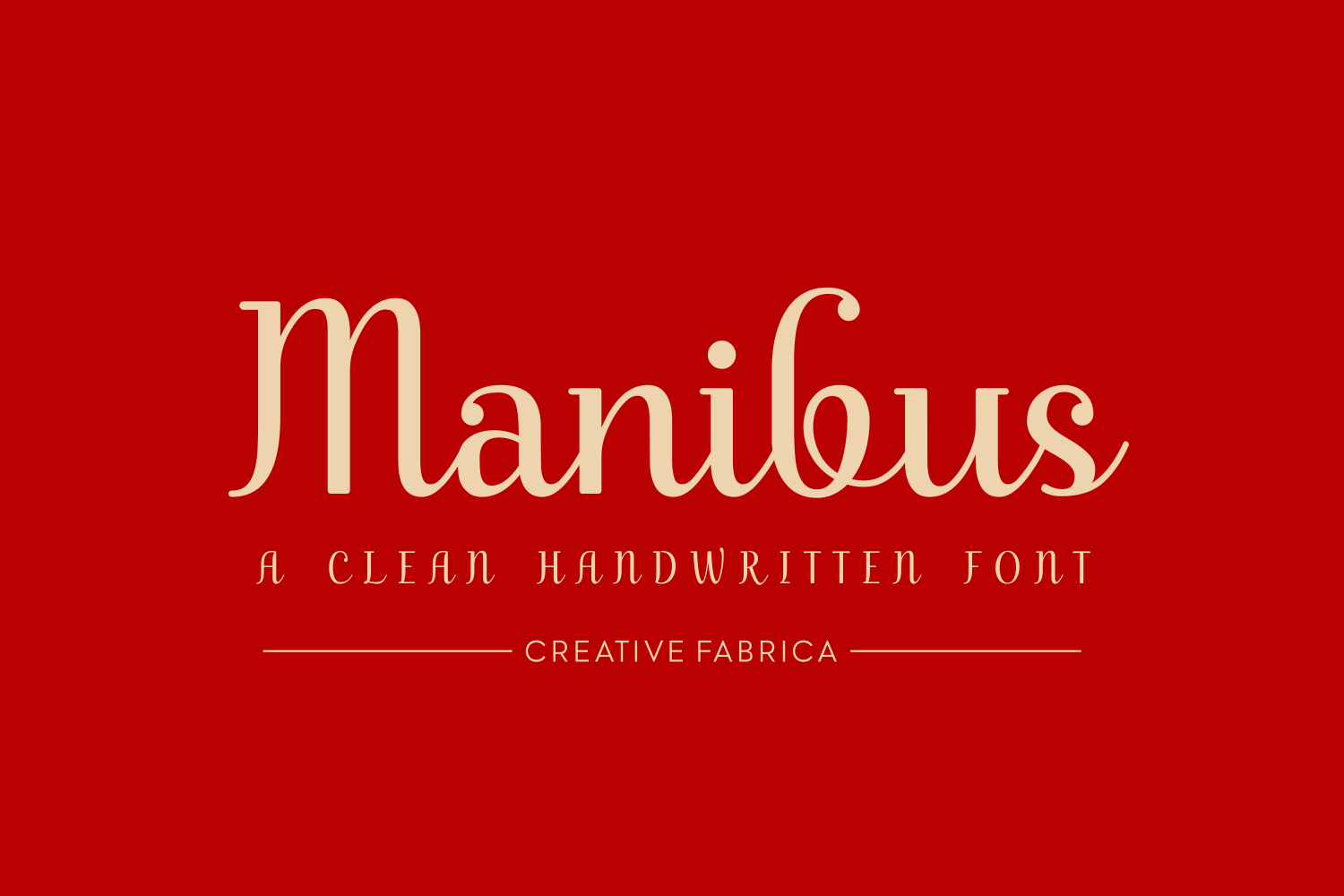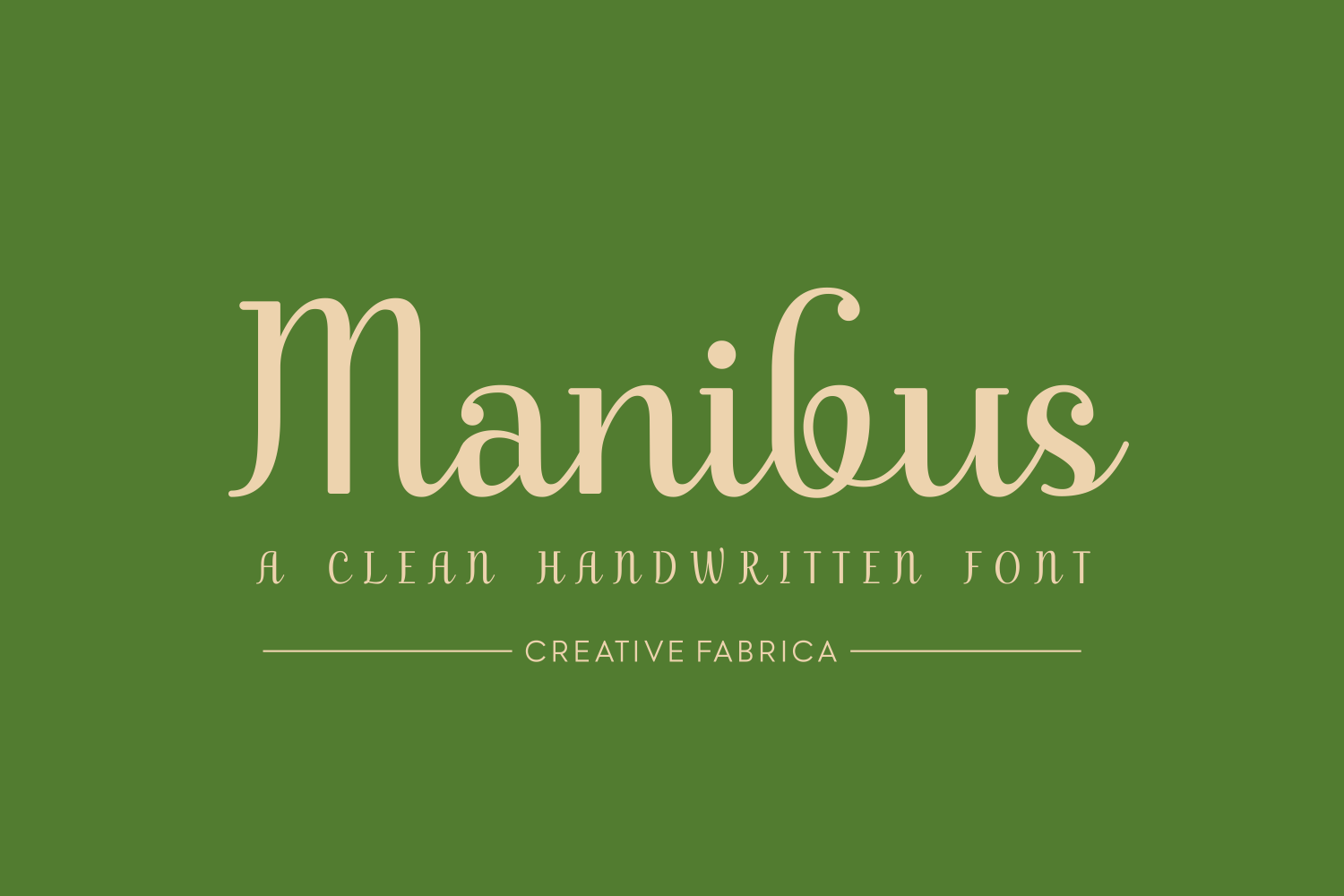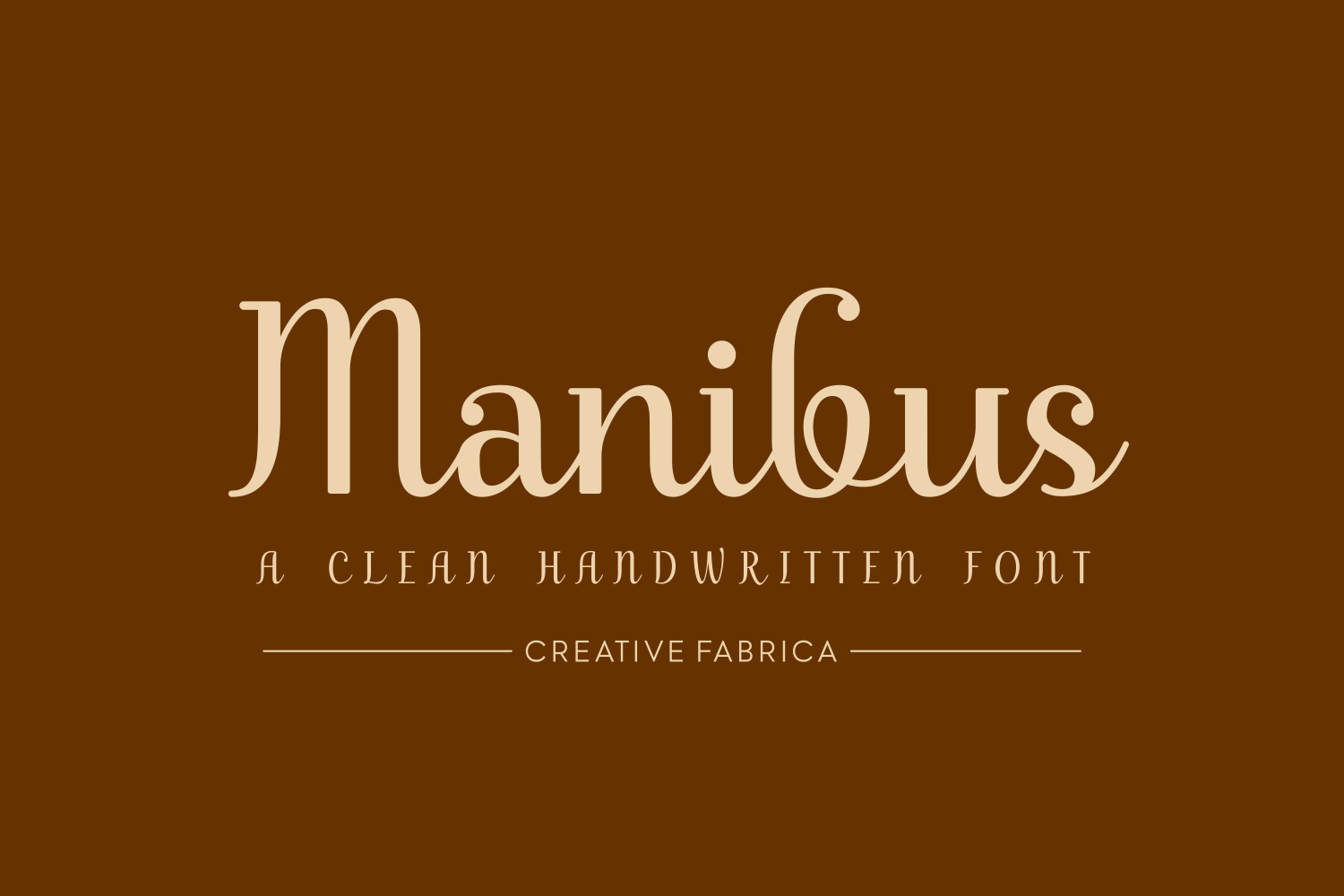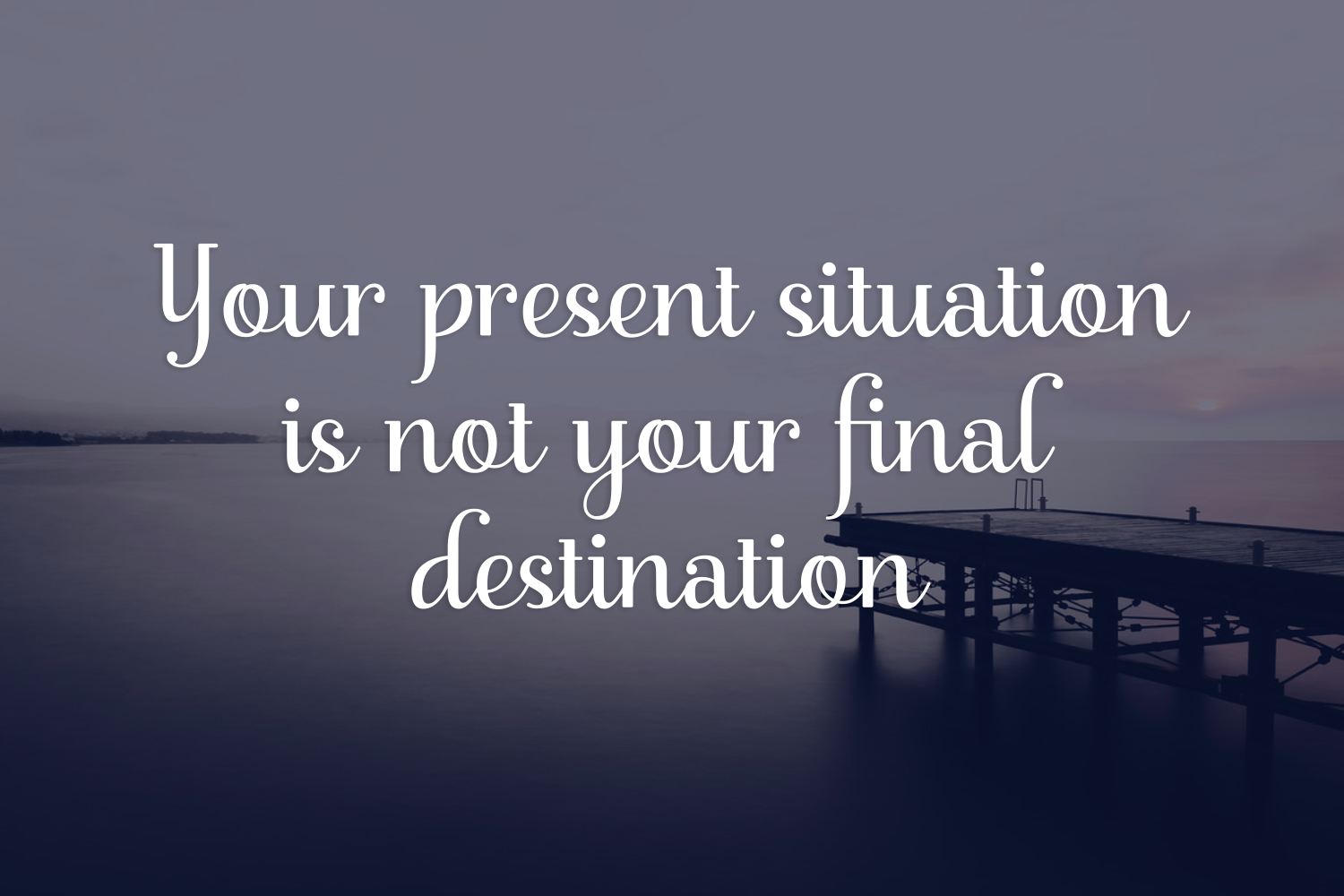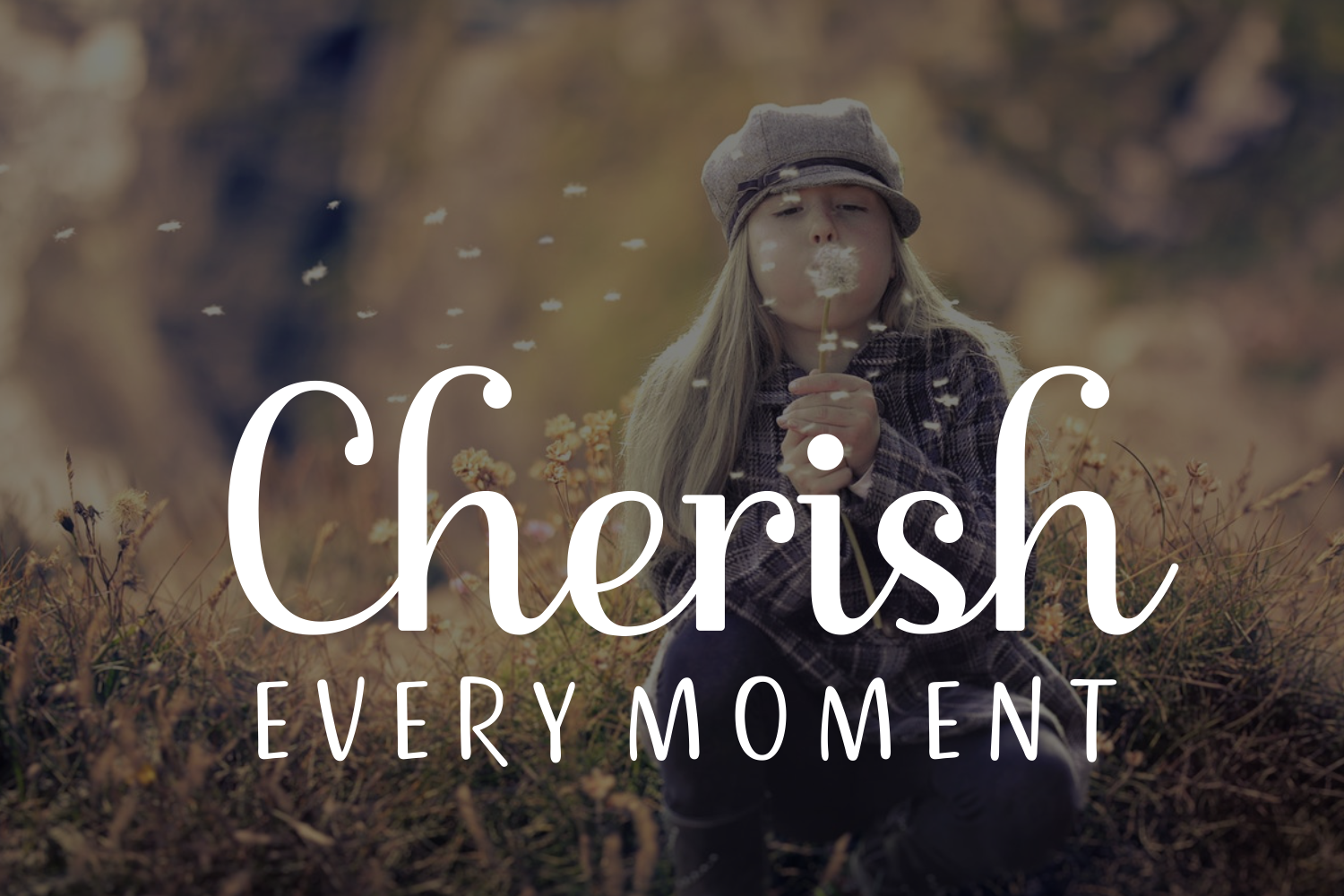
Introduction to Manibus Font Font
Fonts play a crucial role in design, and the Manibus Font font is a typeface that brings both character and versatility to any project. Whether you’re working on a branding project, a website, or a print design, the Manibus Font font offers a unique style that can elevate your work.
Manibus is an elegant, upright handwritten font.
Itβs clean handwriting is very suitable for formal texts The Manibus font is connected and has a natural flow.
Key Features of Manibus Font Font
Why Choose Manibus Font Font?
The Manibus Font font is more than just a typeface β it’s a design tool that helps you communicate your message with style and clarity. Its unique character set and versatile design make it suitable for a wide range of applications, from elegant invitations to bold headlines.
With its carefully crafted letterforms and balanced proportions, the Manibus Font font ensures readability and visual appeal across all mediums.
What makes Manibus Font font special?
The Manibus Font font stands out with its unique design, exceptional readability, and versatility across various design applications.